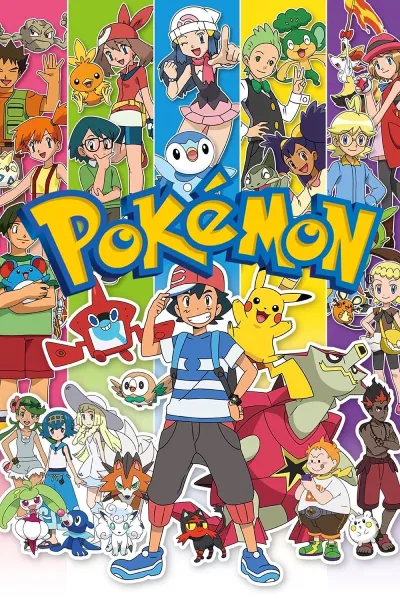
The Pokemon font, known for its bold, blocky style, has evolved with the franchise since its 1996 debut in Japan. Initially featuring simple, pixelated fonts, it transformed into modern, sleek designs over time, reflecting the series’ growth and technological advancements.
So, what font is in Pokemon logos?
The font used in the Pokémon logo closely resembles the Pokemon Solid font and Pokemon font by FontGet. These custom fonts are designed to mimic the style of the Pokémon logo. Additionally, there is an outlined version of the Pokemon Solid font, known as “Pokemon Hollow,” designed by FontMonger and published in 2007.
Other fonts like “Pocket Monk” and “Ketchum” are also inspired by the Pokémon theme and share a similar appearance but are not the exact fonts used in the official logo. The original Pokémon logo, particularly in international versions, features a unique, custom-designed typeface not available as a standard font.
As a result, “Pokemon Solid” and “Pokemon by FontGet” are popular alternatives for fan creations and similar projects.